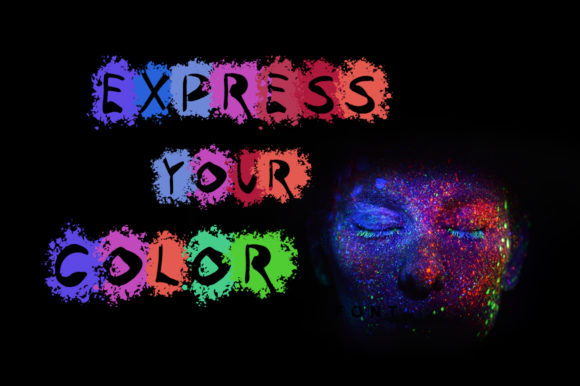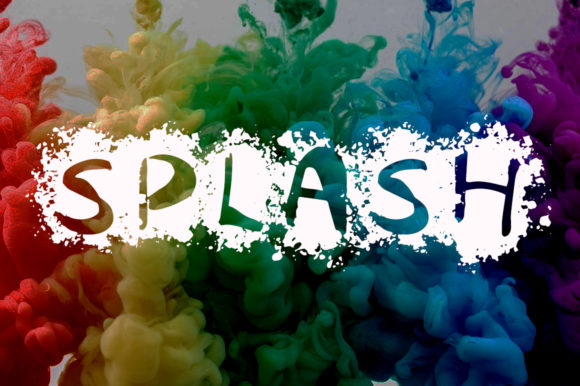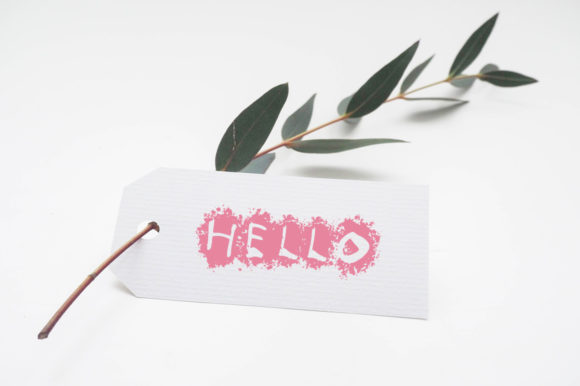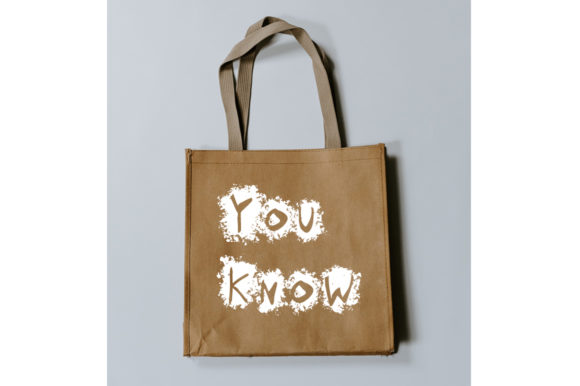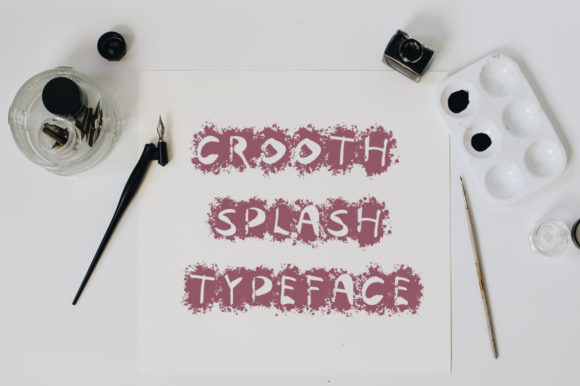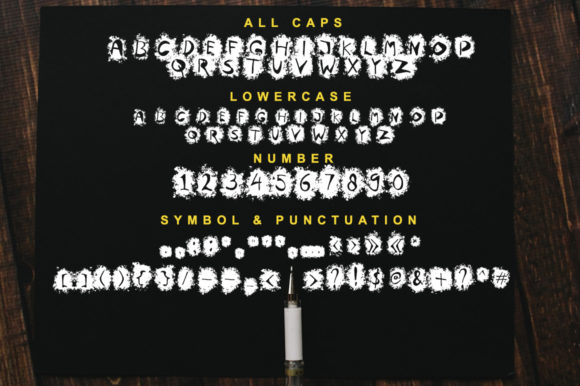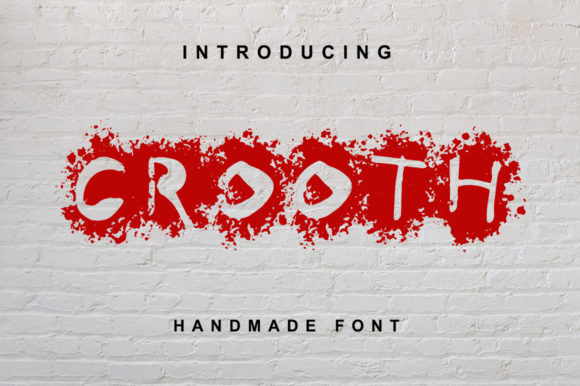
Crooth Font: The Ultimate Display Font for Creative Standouts
In the world of typography, fonts play a crucial role in bringing creative ideas to life. Among the numerous fonts available, Crooth Font has gained significant attention for its unique blend of fun, quirkiness, and authenticity. This enchanting display font has the power to transform any design concept into a true standout, making it a favorite among designers and crafters.
What is Crooth Font?
Crooth Font is a display font designed to add a touch of playfulness and whimsy to any design project. Its distinctive style is characterized by irregular shapes, bold lines, and a carefree spirit. This font is perfect for designers and crafters looking to infuse their work with a sense of fun and personality.
Key Features of Crooth Font
- Unique and Quirky Style: Crooth Font boasts a one-of-a-kind design that sets it apart from other fonts. Its irregular shapes and bold lines create a visually appealing effect that’s sure to grab attention.
- Authentic and Playful: This font exudes a sense of authenticity and playfulness, making it perfect for designs that require a touch of whimsy and fun.
- Highly Versatile: Crooth Font can be used for a wide range of design projects, from posters and flyers to social media graphics and craft projects.
- Easy to Read: Despite its quirky style, Crooth Font is surprisingly easy to read, making it suitable for both headlines and body text.
Uses of Crooth Font
Crooth Font is an incredibly versatile font that can be used for various design projects, including:
- Posters and Flyers: Add a touch of quirkiness to your posters and flyers with Crooth Font, making them stand out from the crowd.
- Social Media Graphics: Use Crooth Font to create eye-catching social media graphics that showcase your brand’s personality.
- Craft Projects: Crooth Font is perfect for craft projects, such as scrapbooking, card making, and journaling.
- Branding and Packaging: Use Crooth Font to add a touch of whimsy to your branding and packaging, making your products more appealing to customers.
Why Choose Crooth Font?
With so many fonts available, why choose Crooth Font? Here are a few reasons:
- Unique Style: Crooth Font offers a unique style that’s hard to find in other fonts.
- High-Quality Design: Crooth Font is designed with high-quality graphics, ensuring that it looks great in any design project.
Tips for Using Crooth Font
To get the most out of Crooth Font, here are a few tips:
- Use it Sparingly: While Crooth Font is a beautiful font, it’s best used sparingly. Use it for headlines or key phrases to add emphasis.
- Pair it with Other Fonts: Crooth Font pairs well with other fonts, so experiment with different combinations to find the perfect look.
- Experiment with Colors: Crooth Font looks great in a variety of colors, so don’t be afraid to experiment and find the perfect hue.
Crooth Font is an enchanting display font that embodies fun, quirkiness, and authenticity. Its unique style and versatility make it perfect for designers and crafters looking to add a touch of personality to their work. With its ease of use, high-quality design, and excellent support, Crooth Font is a great choice for any design project. So why not give it a try and see how it can transform your creative ideas into true standouts?